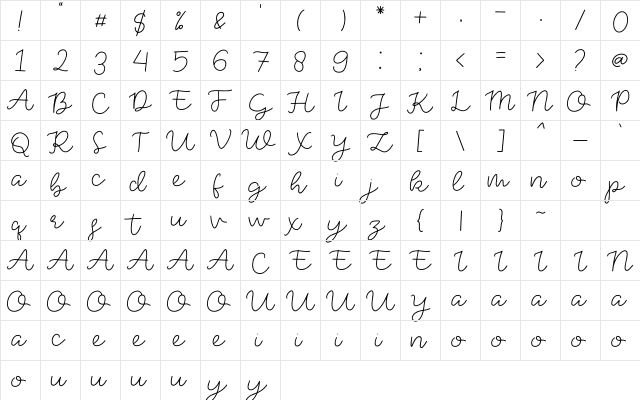
Sparkle Regular
| Designer | Desinta (Peterdraw) |
Design Context for Sparkle Typeface
Sparkle is a composed and adaptable typeface that performs quietly and consistently across a wide range of design contexts.